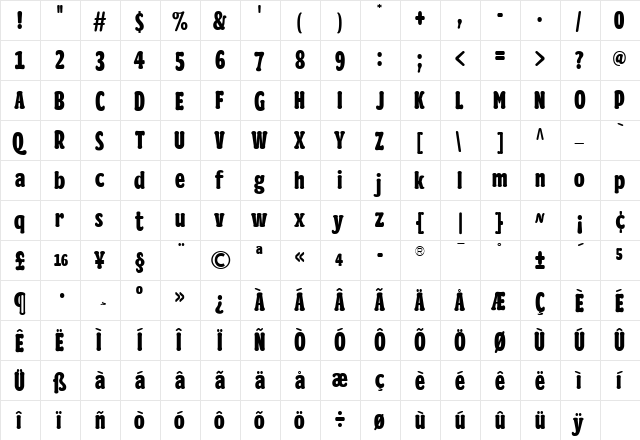
TFSimperXCond Extrabold
Design Context for TFSimperXCond Typeface
TFSimperXCond is a composed and adaptable typeface that performs quietly and consistently across a wide range of design contexts. The heavy weight commands attention and anchors typographic hierarchies. Its narrow stance lets it pack a punch even in space-constrained designs.